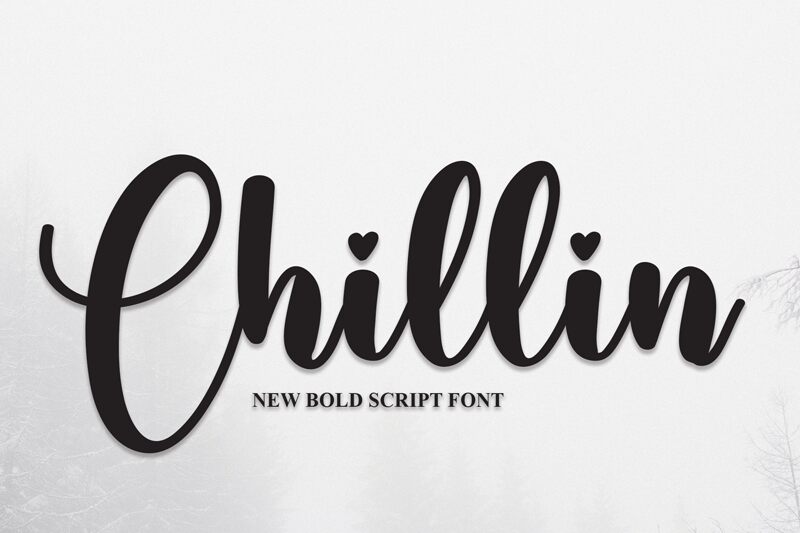
Chillin
Chillin, a delightful creation by Scratchones, is a charming and captivating font that exudes a sense of playfulness and elegance. With its cute calligraphy style and semi-bold weight, Chillin adds a touch of whimsy to any design project.
Perfect for greeting cards, invitations, and wedding stationery, this feminine font brings an air of grace and sophistication. Its versatility also makes it suitable for children's books, packaging designs, or even creating eye-catching social media graphics.
Let your imagination run wild with Chillin as you infuse your projects with an enchanting allure.
The latest style letters are perfect for wall displays, wedding invitations, social media post logos, advertisements, product packaging, product designs, labels, photography, watermarks, invitations, stationery, and any project that requires taste handwriting.
Perfect for greeting cards, invitations, and wedding stationery, this feminine font brings an air of grace and sophistication. Its versatility also makes it suitable for children's books, packaging designs, or even creating eye-catching social media graphics.
Let your imagination run wild with Chillin as you infuse your projects with an enchanting allure.
The latest style letters are perfect for wall displays, wedding invitations, social media post logos, advertisements, product packaging, product designs, labels, photography, watermarks, invitations, stationery, and any project that requires taste handwriting.